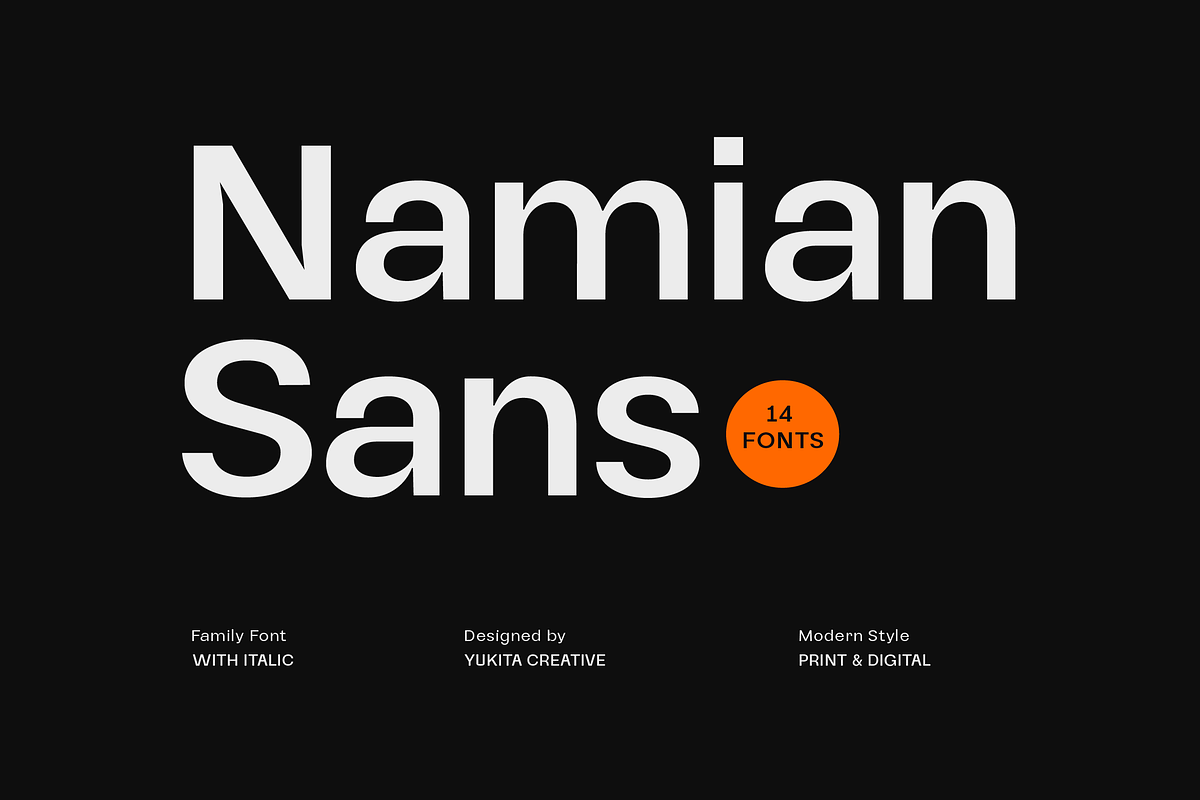
Namian Sans Serif Font Free Download is a clean, modern typeface designed for clarity, versatility, and visual balance. With its simple geometric forms and minimal aesthetic, Namian is ideal for branding, website design, corporate presentations, user interfaces, and editorial layouts that require a professional and contemporary touch.
Namian Sans Serif Font Free Download offers excellent readability and a neutral tone, making it a reliable choice for both display and body text. Whether you're building a sleek logo or crafting clean web typography, this font ensures your design feels fresh, modern, and easy to engage with. Download it today and give your projects a crisp, stylish finish with Namian.